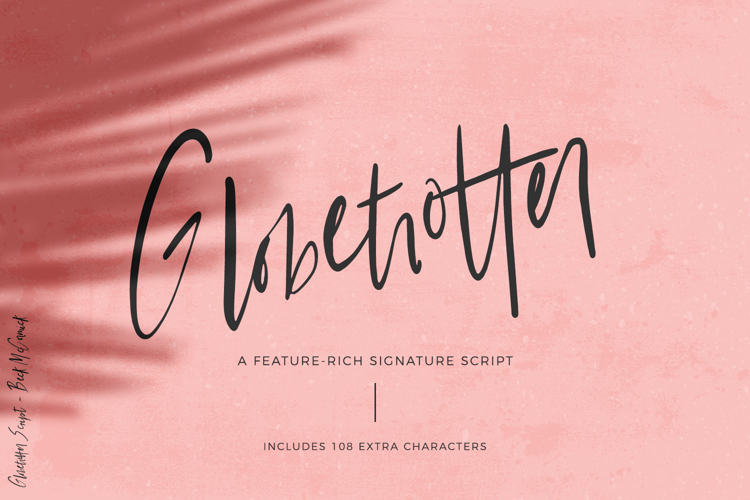
Globetrotter Script
Introducing **Globetrotter**, a feature-rich signature style script, reminiscent of memories and notes jotted in a traveler’s notebook.
***Globetrotter** includes:
- numbers, punctuation
- 52 stylistic alternates for lowercase letters
- 56 ligatures
**Ligatures include:**
an ll rr al am an ant ar as att bar bb cc dd ee el em en ent er es ett ff gg gl il im in int ir is int ll lu mm nn ob ol om on oo or os pr rr ss st tr tt ul em en er us utt zz